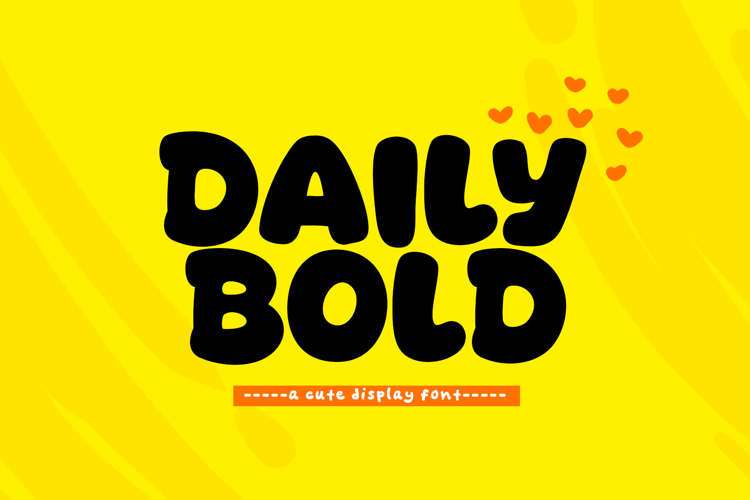
Daily Bold is a fun and cool display font. Whether you use it for cartoon-related designs, children’s games, or just any creation that requires a playful touch, this font is the perfect choice for your designs!